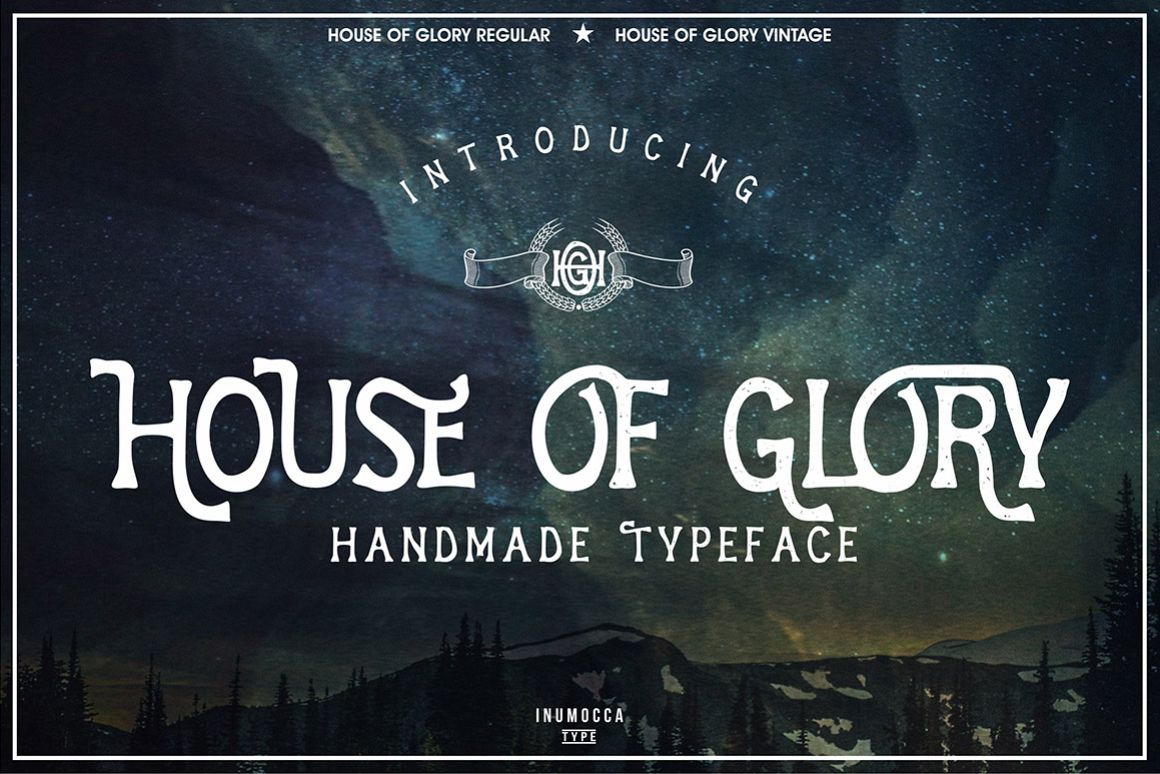
House Of Glory
House of glory vintage
House of glory
HOUSE OF GLORY its classic and vintage typeface, great vintage and classic taste for your brand,
poster, quotes, logo and etc
HOUSE OF GLORY with vintage glyphs
HOUSE OF GLORY available with
- HOUSE OF GLORY regular and
- HOUSE OF GLORY vintage
HOUSE OF GLORY typeface support with Opentype :
- Contextual Alternates
- Swash
- Multilingual character